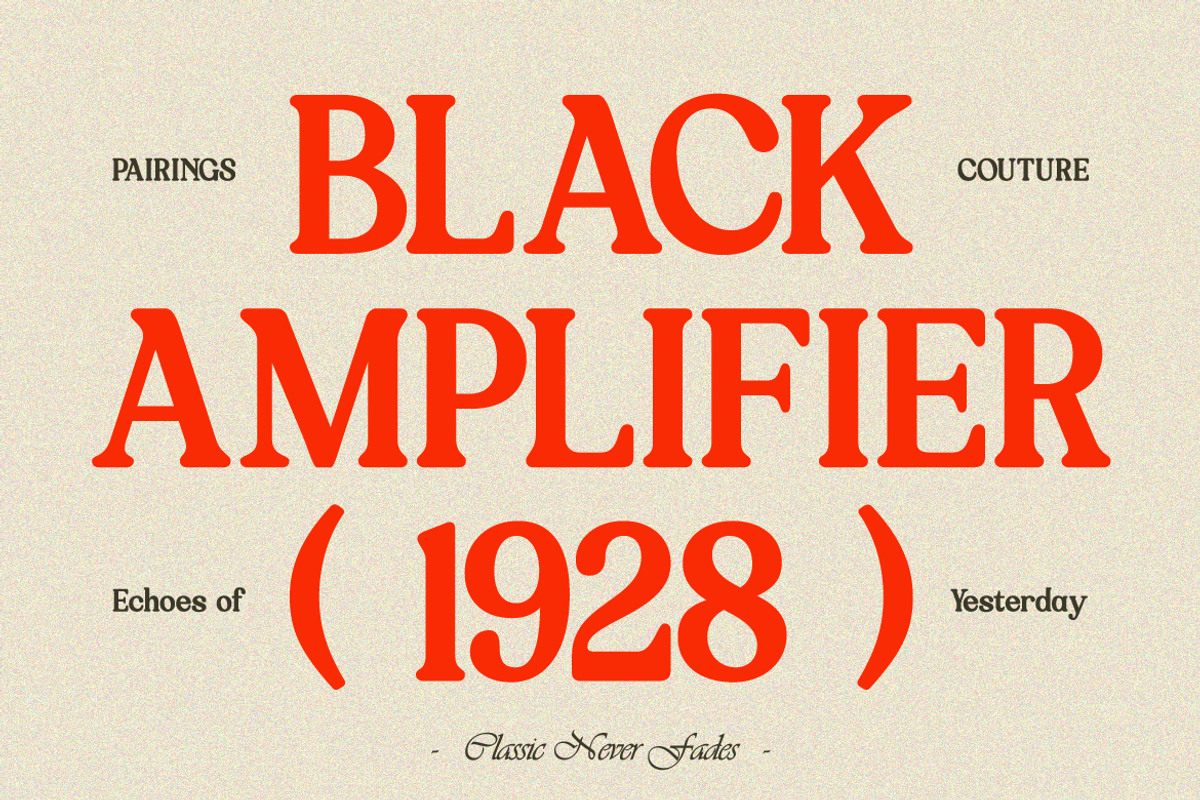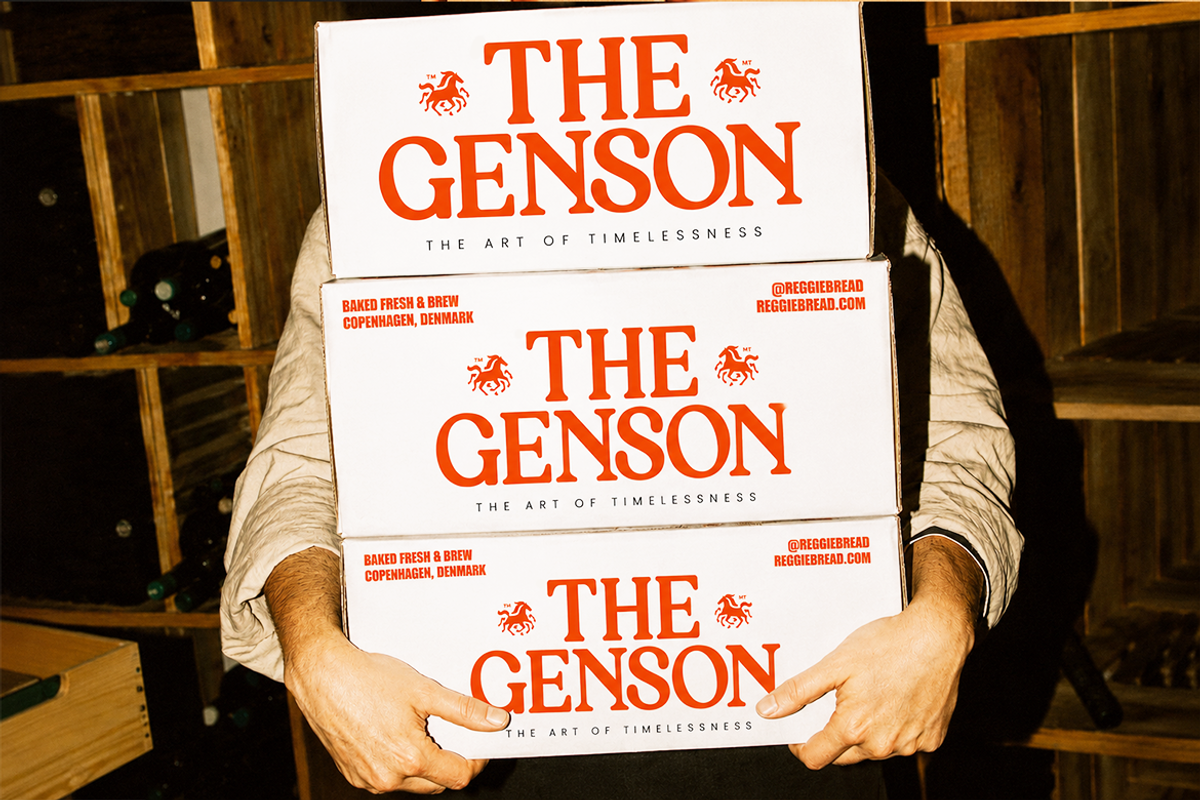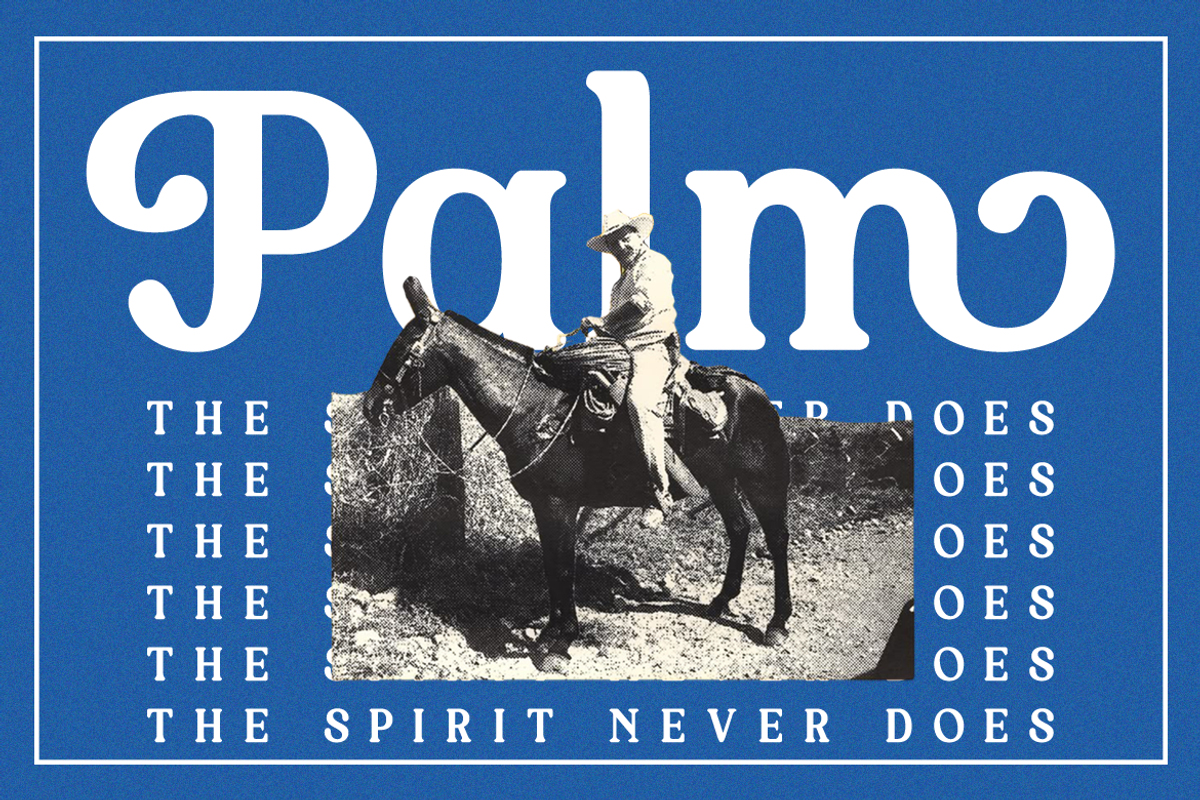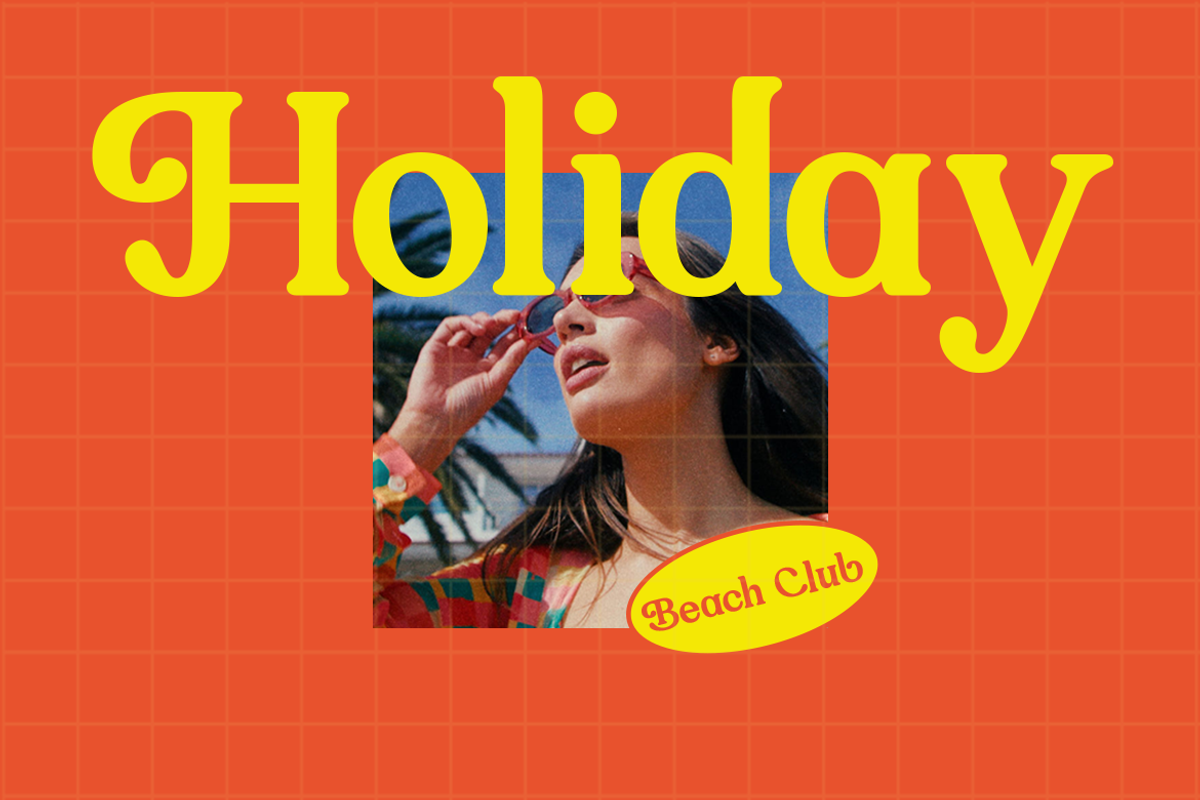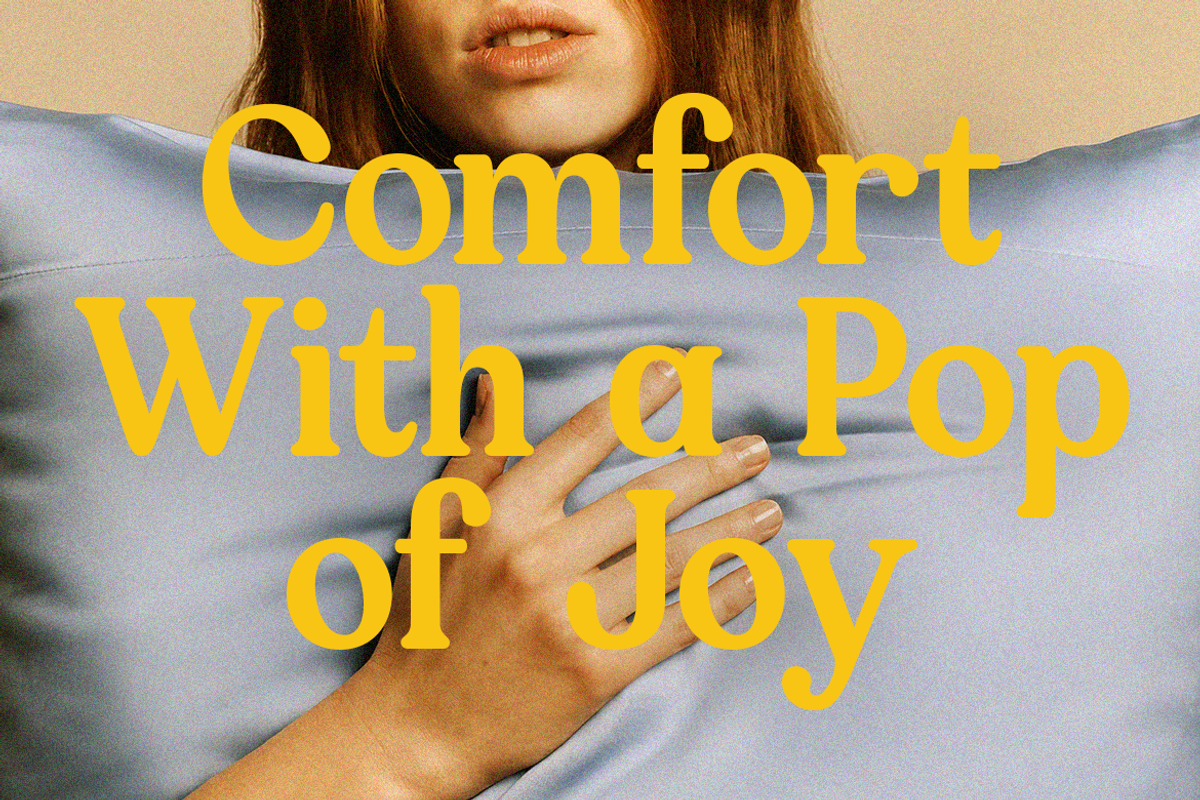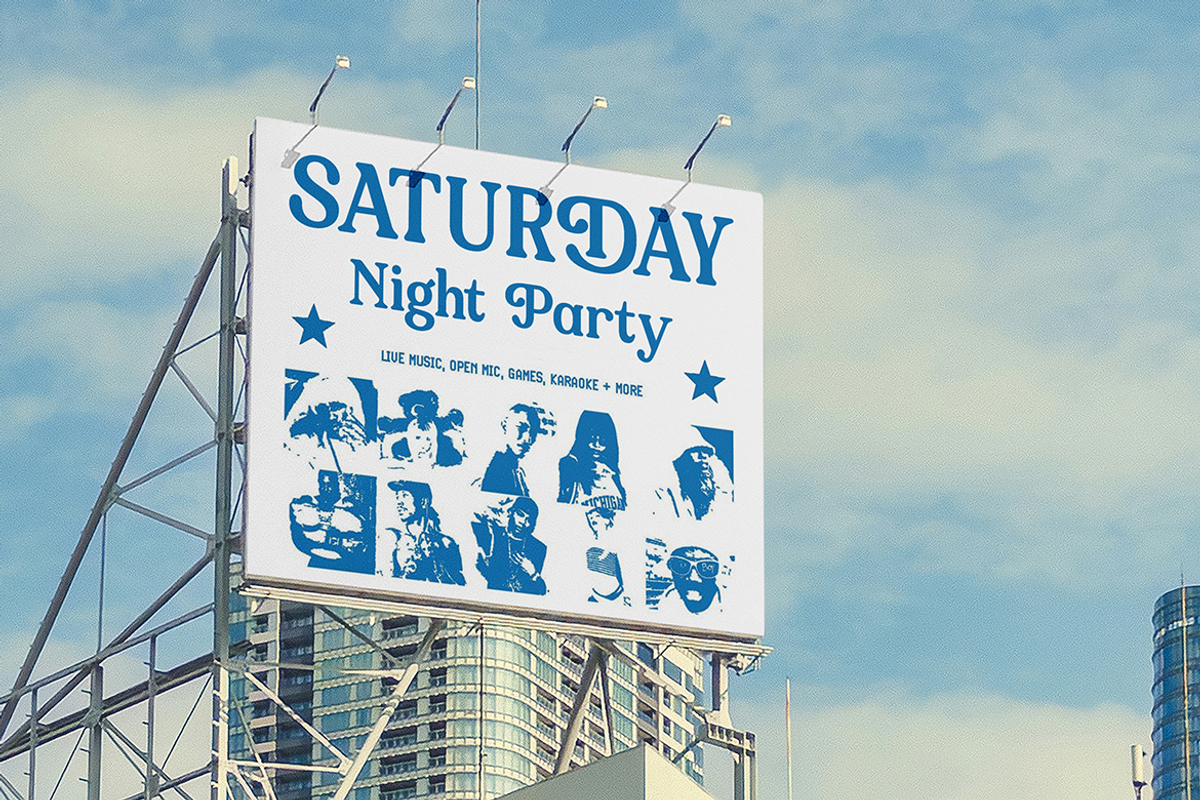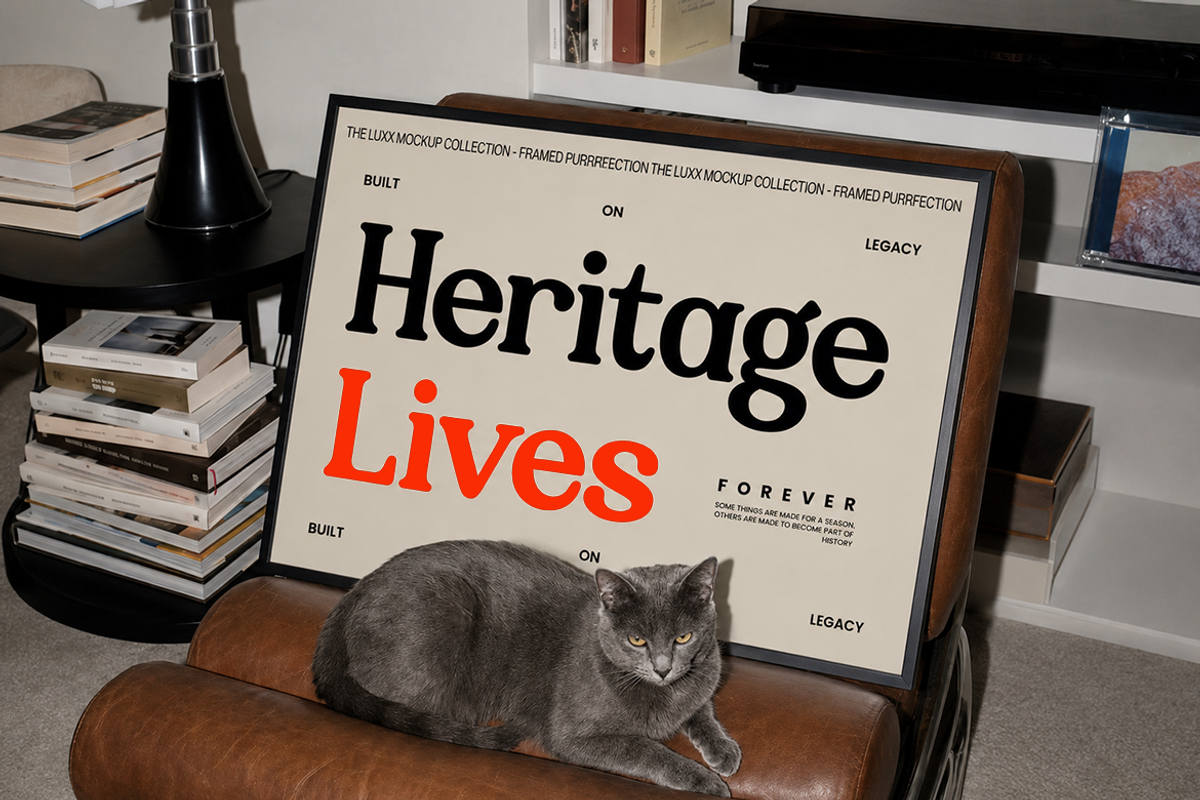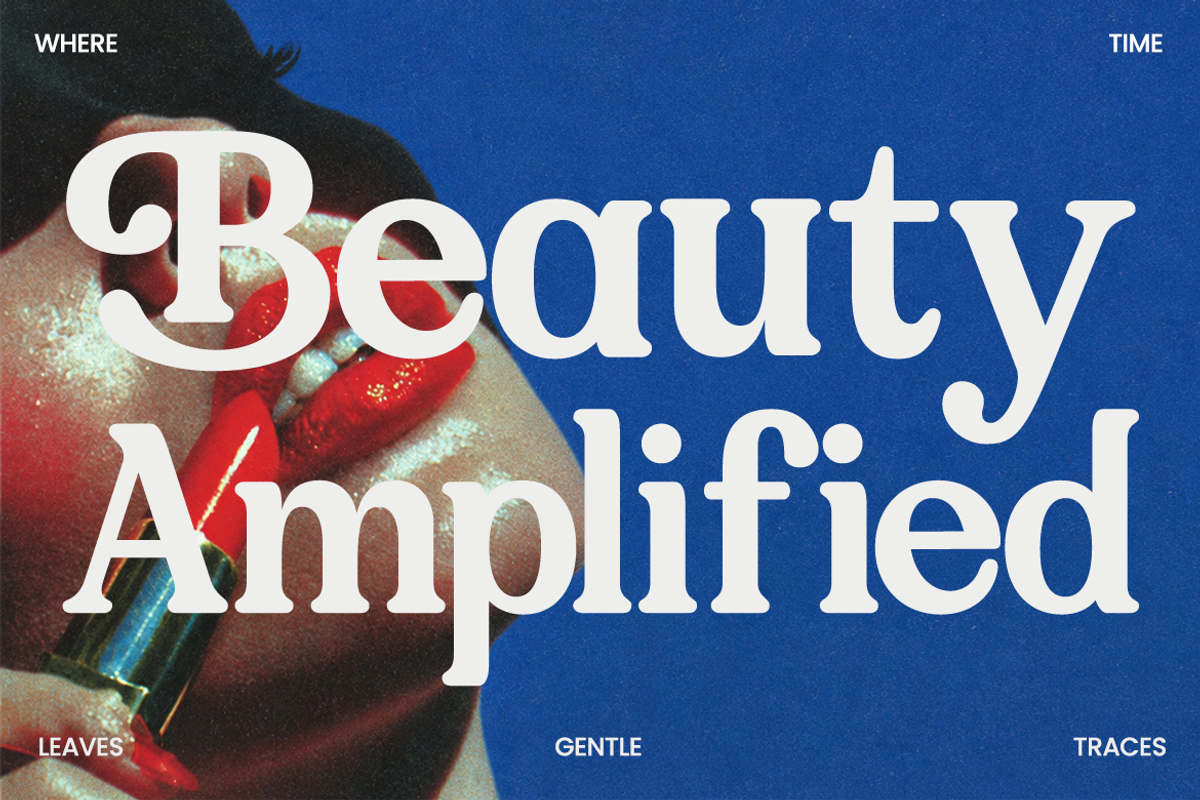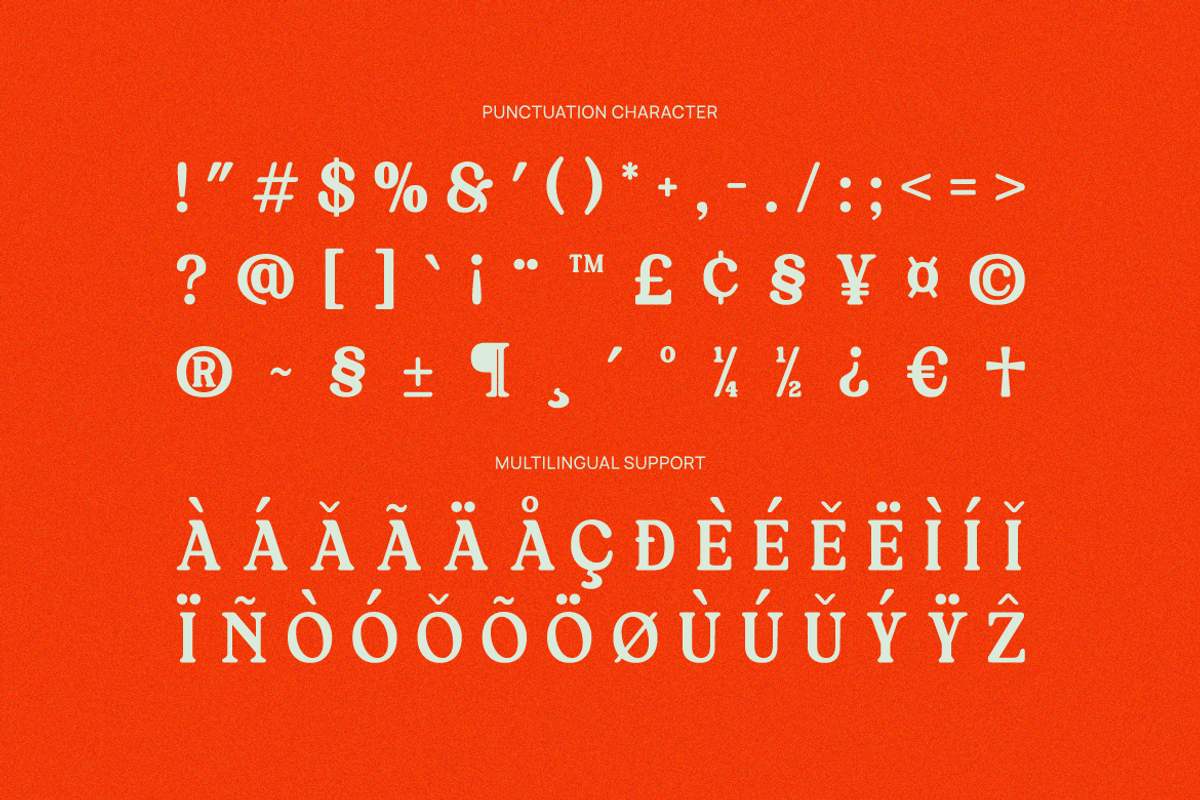
Bobante Retro Classic Serif Font
Bobante Retro Classic Serif Font is a retro classic display serif typeface that captures the warmth and charm of vintage typography with a refined contemporary finish. Inspired by mid-century advertising, nostalgic editorial design, and timeless print craftsmanship, the font features bold serif construction, soft rounded terminals, and graceful curves that create an inviting yet confident visual personality. Its distinctive character makes every headline feel memorable while maintaining excellent readability.
Designed with balanced proportions and carefully crafted details, Bobante combines traditional serif elegance with playful retro influences. The font includes stylistic alternates and ligatures that allow designers to create expressive wordmarks and custom typography with a natural, handcrafted appearance. Its smooth stroke transitions, generous counters, and harmonious spacing make it equally effective for bold titles and decorative branding applications. Bobante is ideal for branding projects, vintage-inspired packaging, editorial layouts, cafés, restaurants, bakeries, lifestyle products, fashion labels, cosmetic brands, posters, greeting cards, book covers, social media graphics, and creative marketing materials.
Bold retro serif construction inspired by classic print and vintage advertising
Rounded terminals and soft curves for a warm, approachable appearance
High-contrast strokes that enhance visual impact in large display settings
Carefully balanced proportions for elegant and readable headlines
Stylistic alternates and ligatures that create expressive custom typography
Vintage-inspired branding for cafés, bakeries, restaurants, and others.
Editorial magazines, book covers, and classic print publications
Product packaging, labels, and premium retail branding
Fashion boutiques, beauty brands, and lifestyle businesses
Posters, greeting cards, invitations, social media graphics.
Supports numerals, punctuation, and extensive symbol set
Bring timeless character to your creative work with Bobante